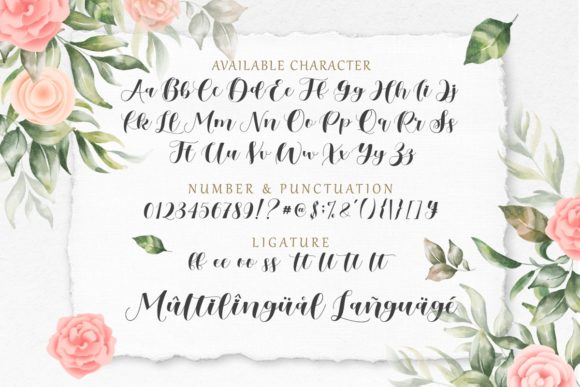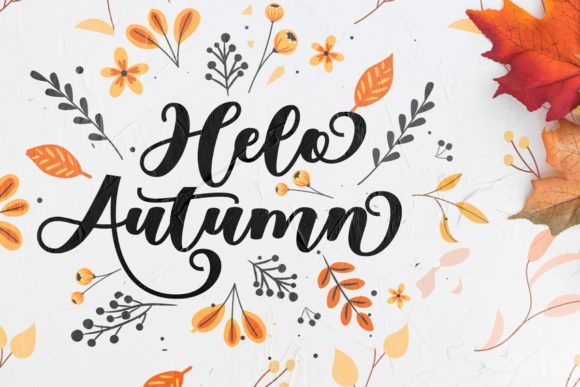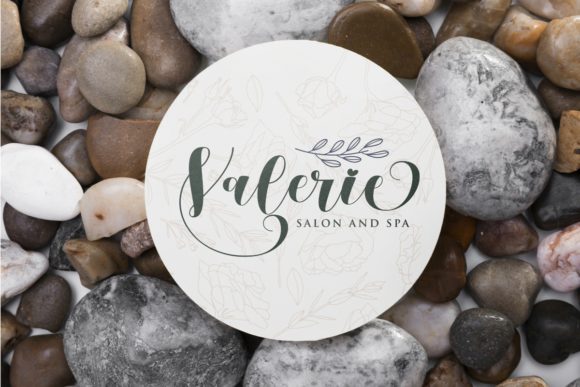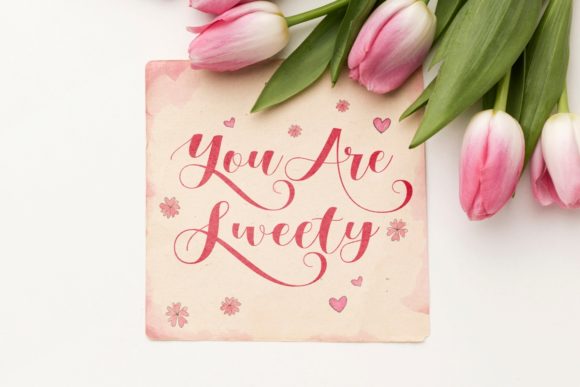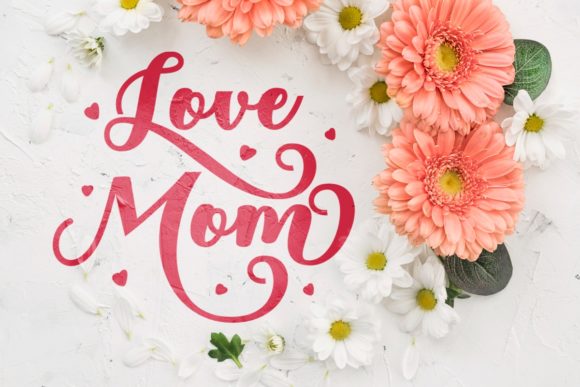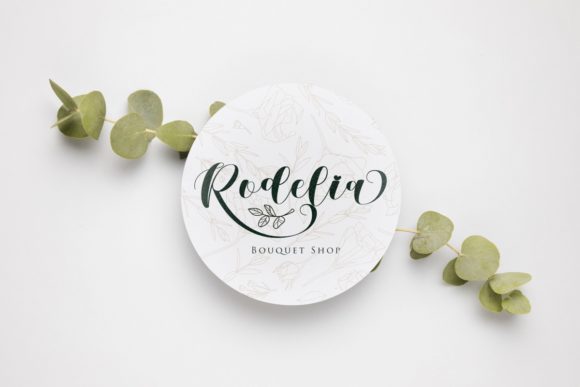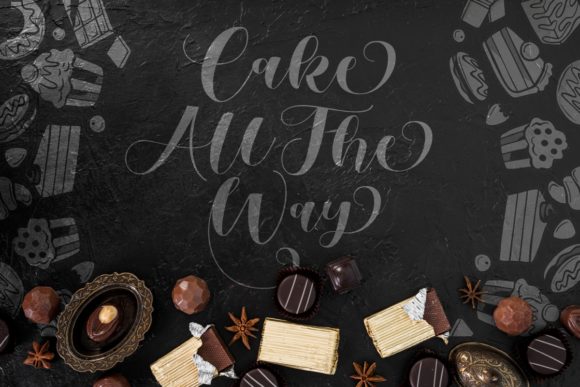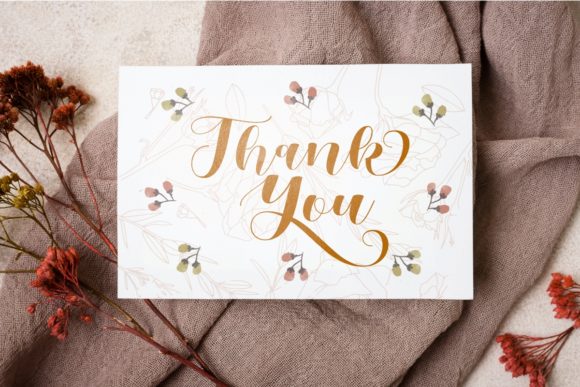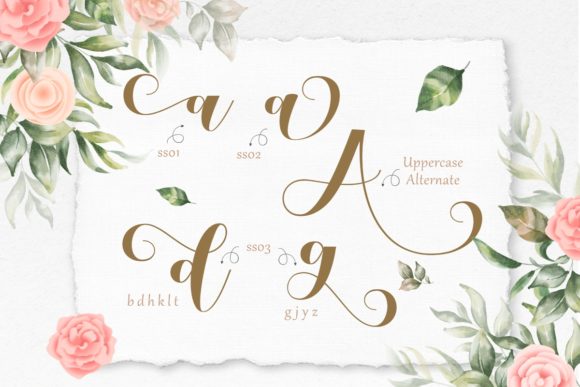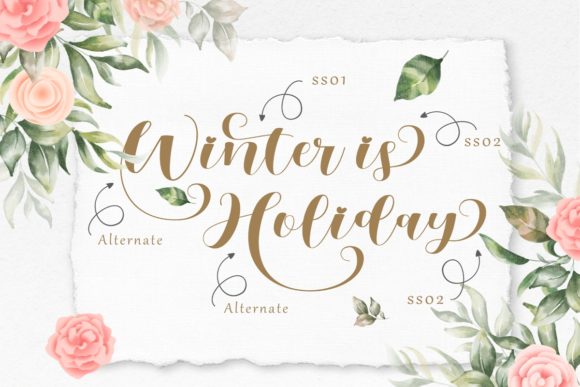
Verali Font
About Verali Font
Verali is a romantic and sweet calligraphy typeface with characters that dance along the baseline. It has a casual, yet elegant touch. It can be used for various purposes such as logos, wedding invitations, headings, t-shirts, letterhead, signage, labels, news, posters, badges and so much more. This font is PUA encoded which means you can access all of the glyphs and swashes with ease!